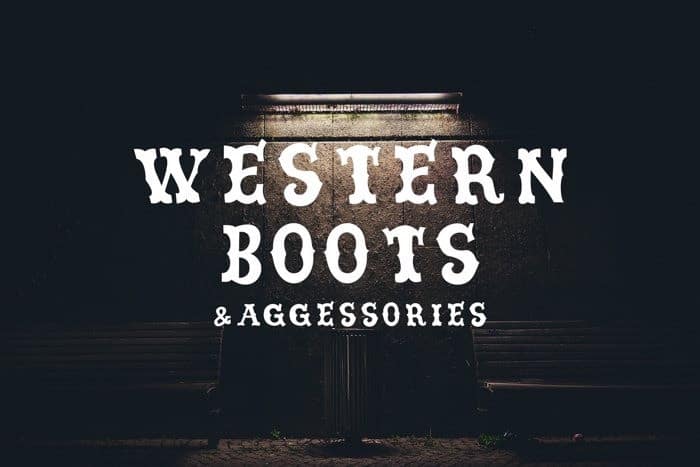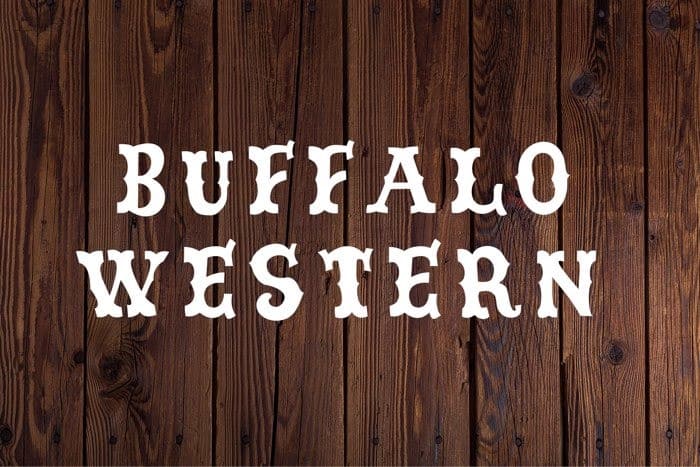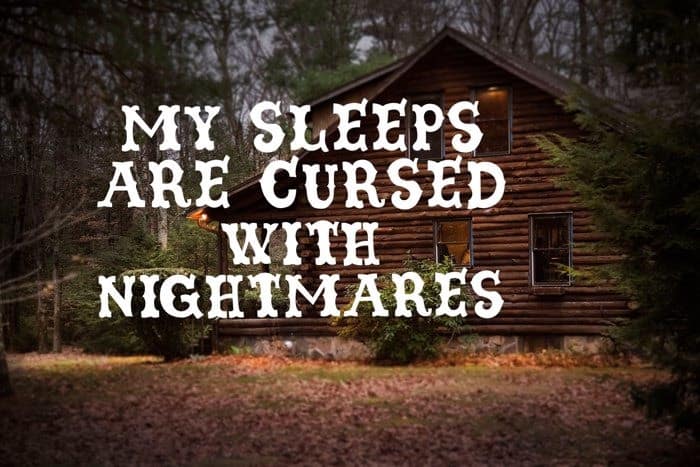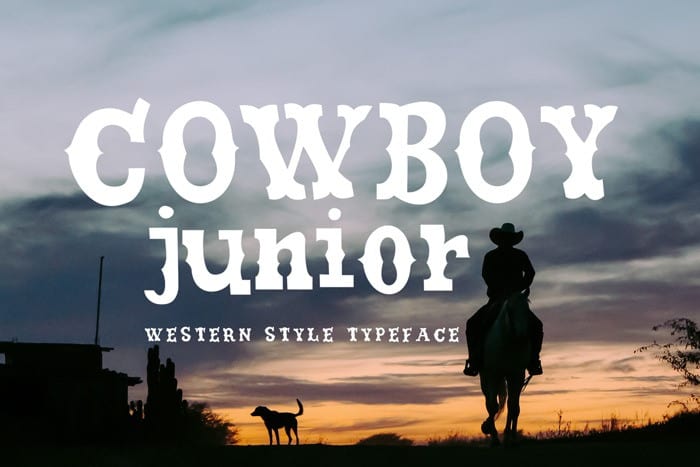
Cowboy Junior Display Font
Say hello to Cowboy Junior Display Font is an incredibly distinct blackletter font. Cowboy Junior’s uppercase letters are slightly condensed and have roughly equal widths, creating a uniform, mechanical rhythm. Masterfully designed to become a true favorite, this font has the potential to bring each of your creative ideas to the highest level!